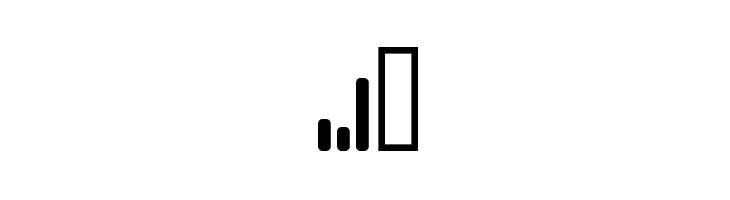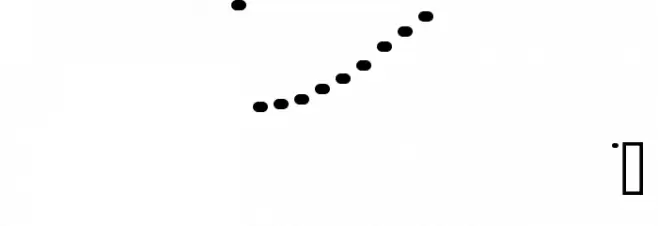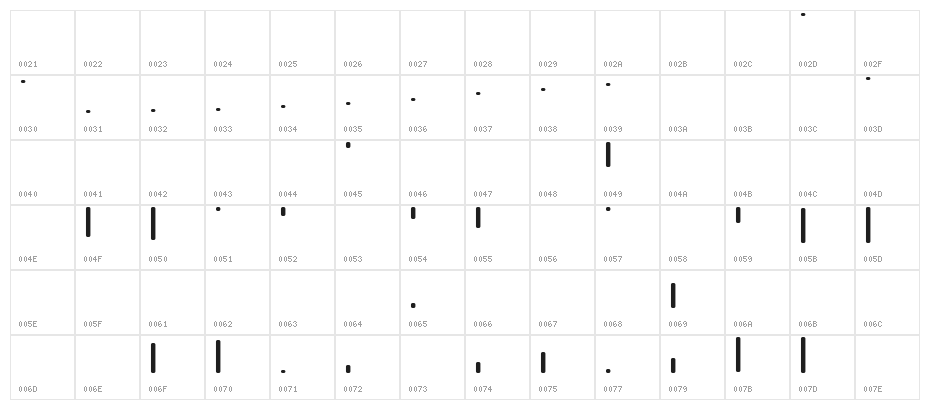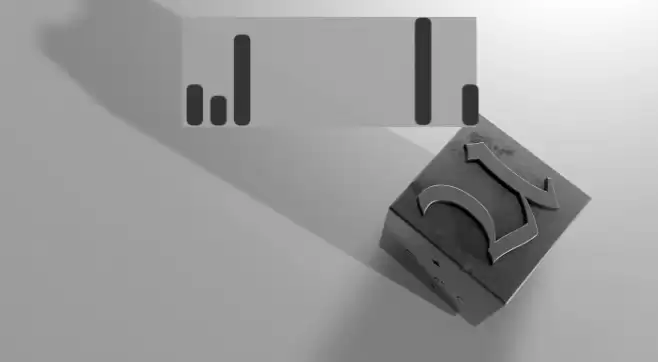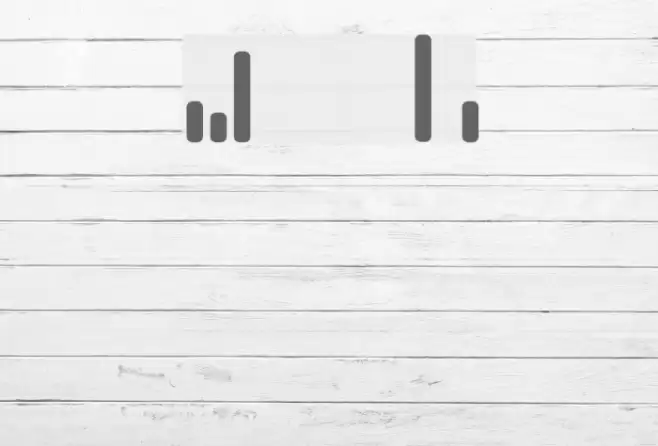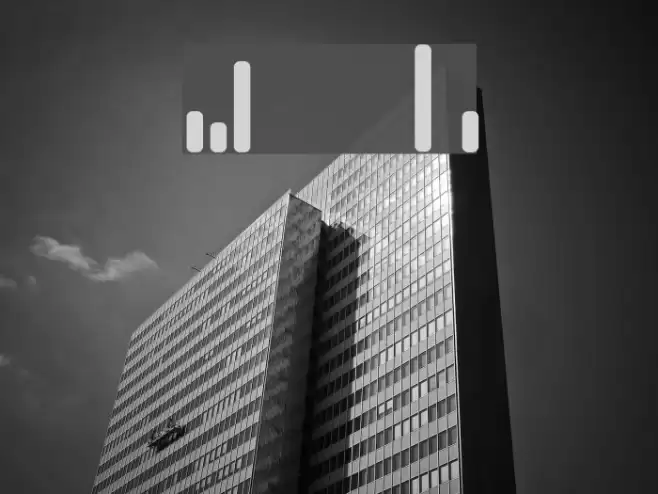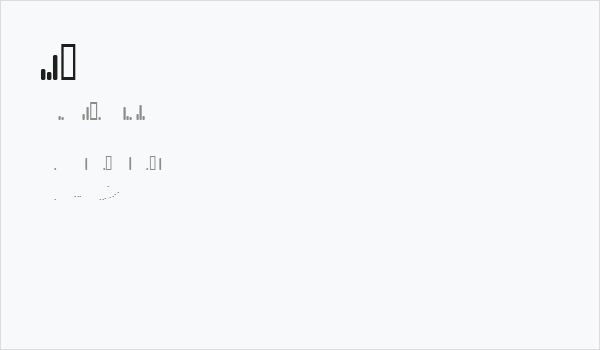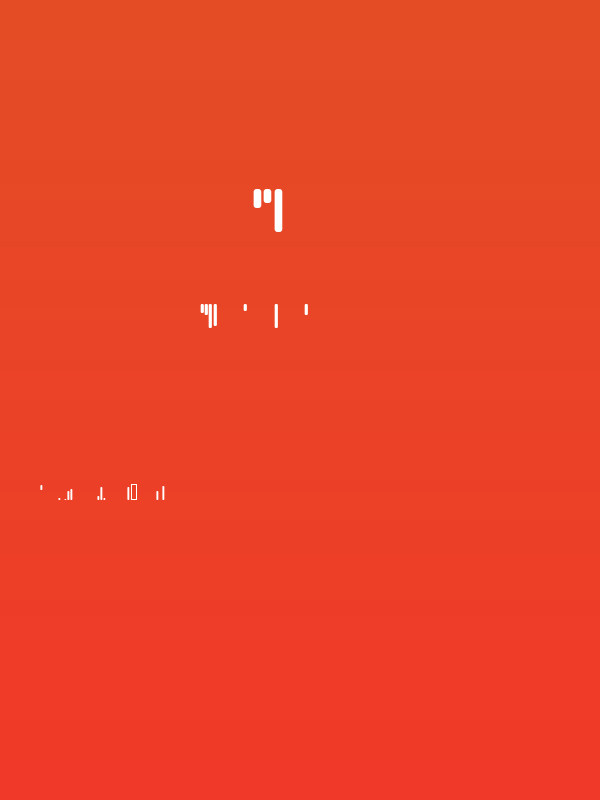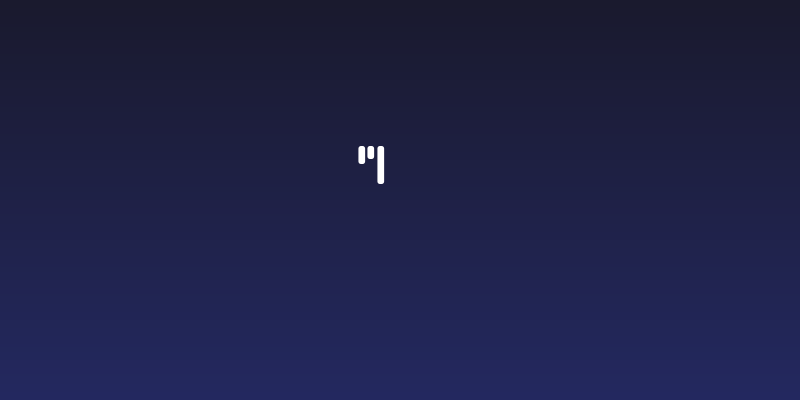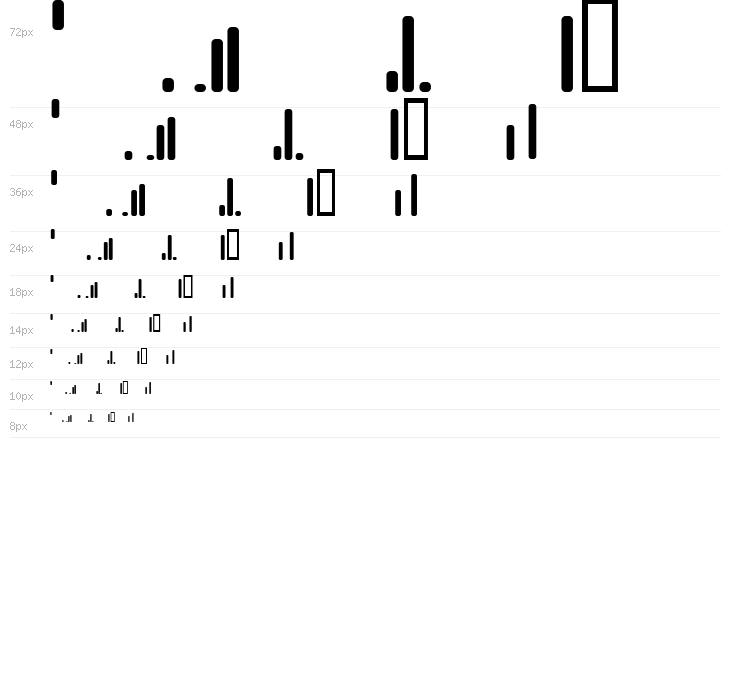
trix Font
trix Description
This font features a highly decorative and abstract style, characterized by its unique and artistic representation of characters. The design incorporates a series of vertical and horizontal lines, creating a fragmented and geometric appearance. Each character is composed of distinct segments that give the font a modern and avant-garde feel. The spacing between characters is irregular, contributing to its abstract aesthetic. This font is not suitable for body text due to its complexity but can be an excellent choice for artistic and creative projects where a bold statement is desired.
| Overall Style | Modern, Avant-garde |
| Use Case | Artistic projects, Creative branding |
| Proposed Projects | Ideal for artistic projects, modern art posters, creative branding, and avant-garde design work. |